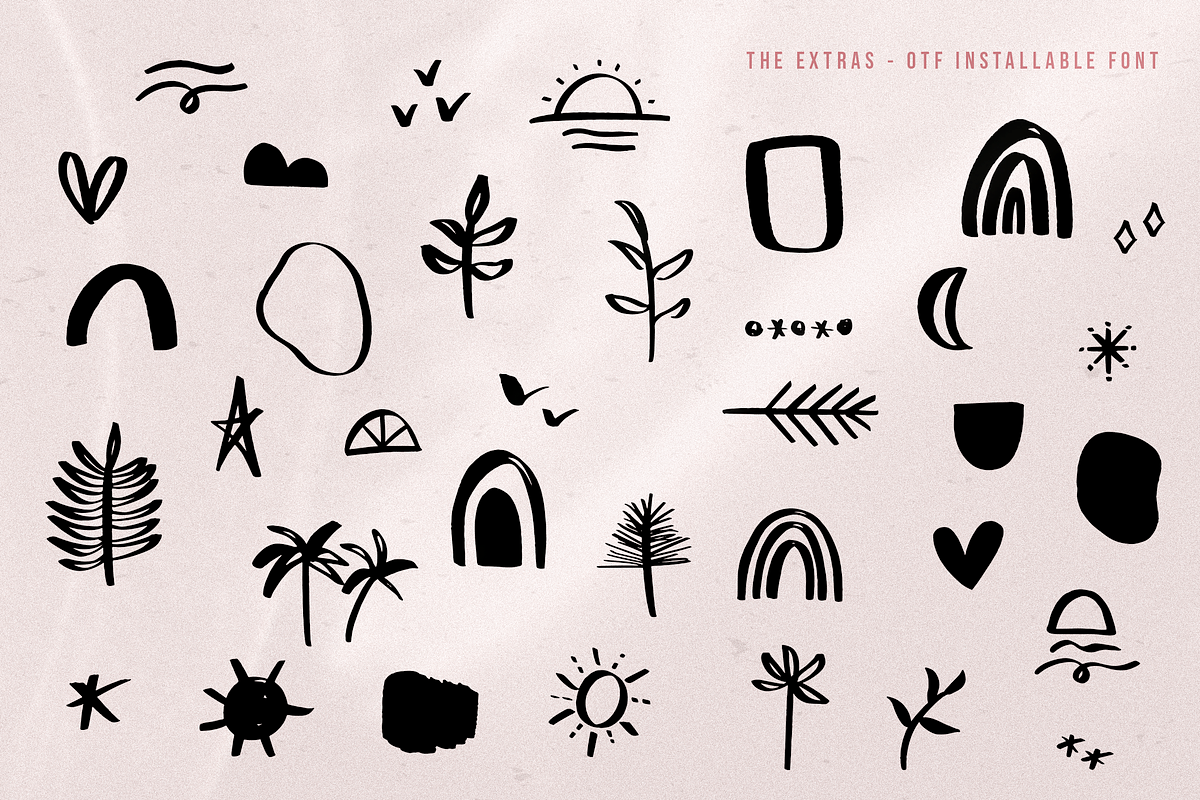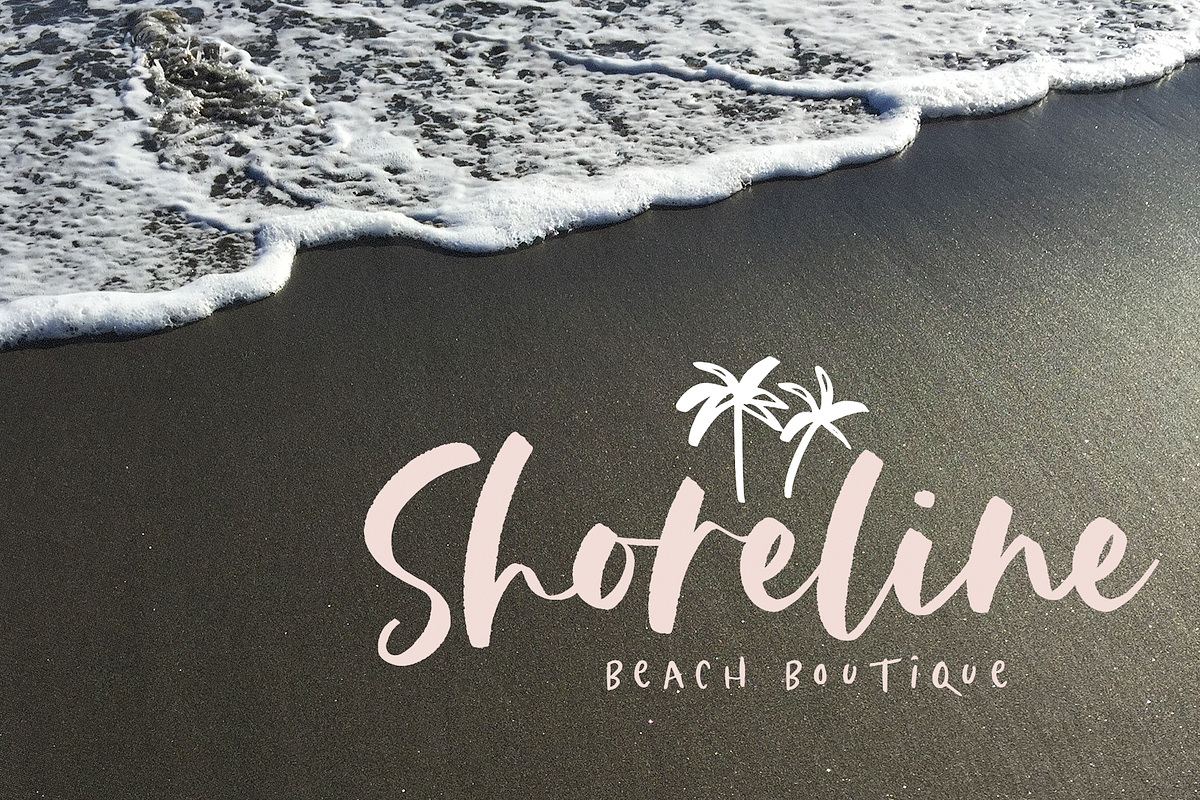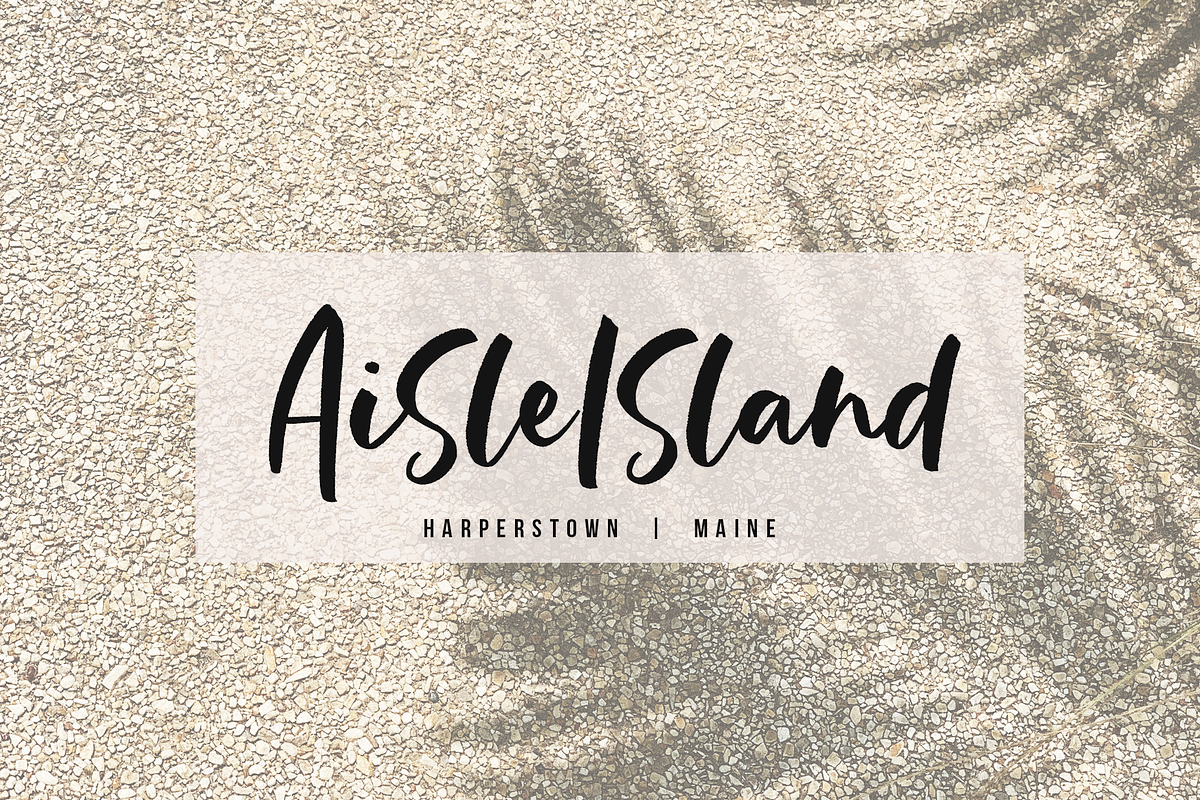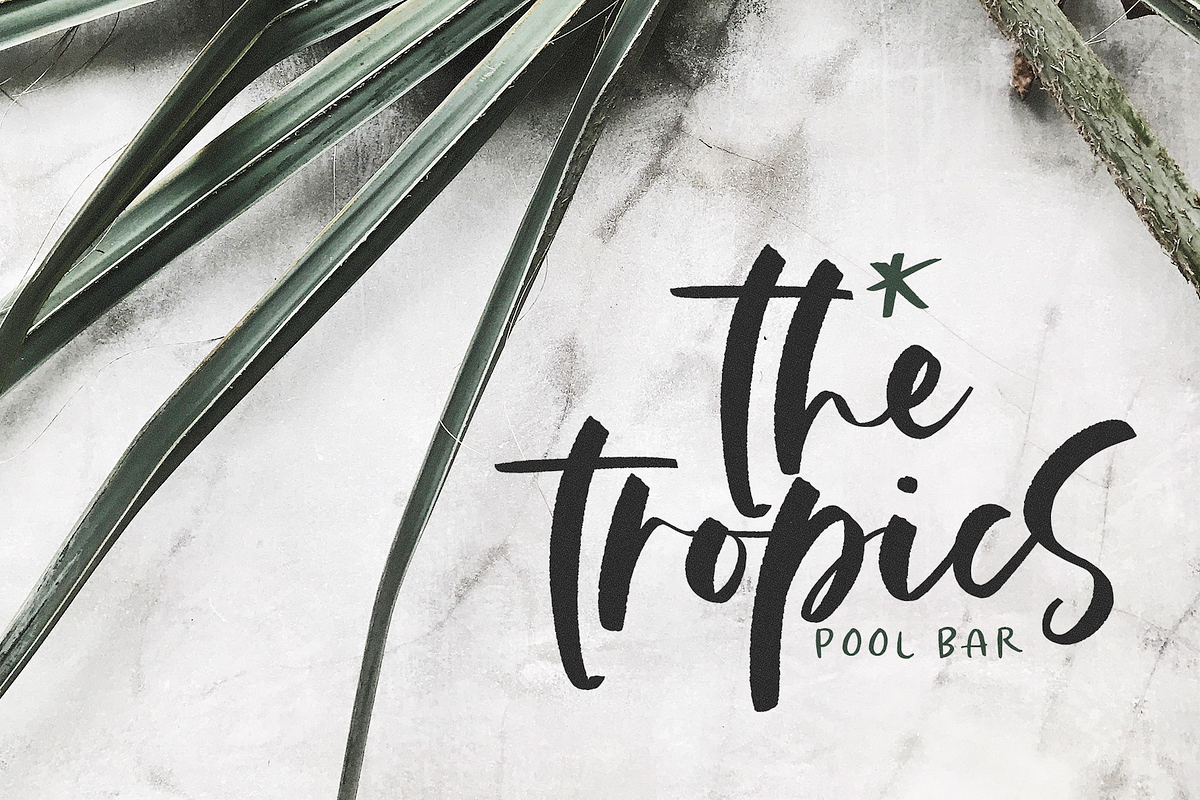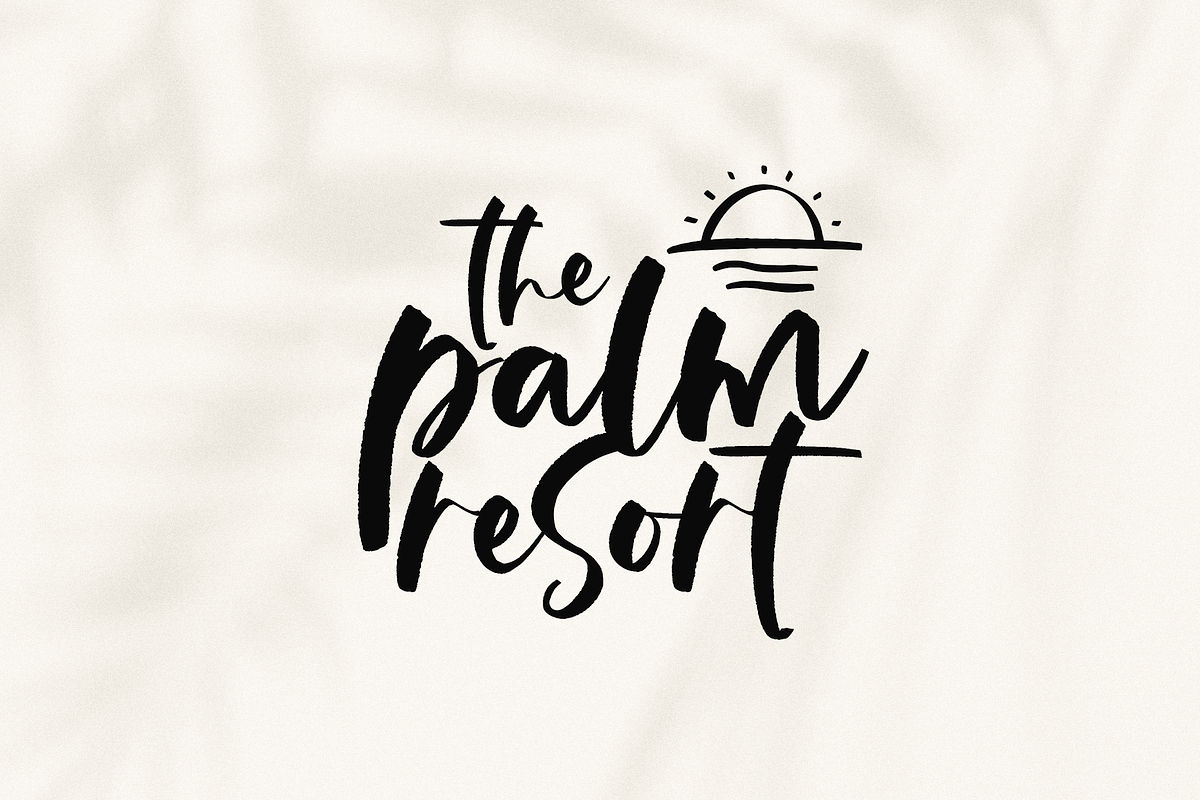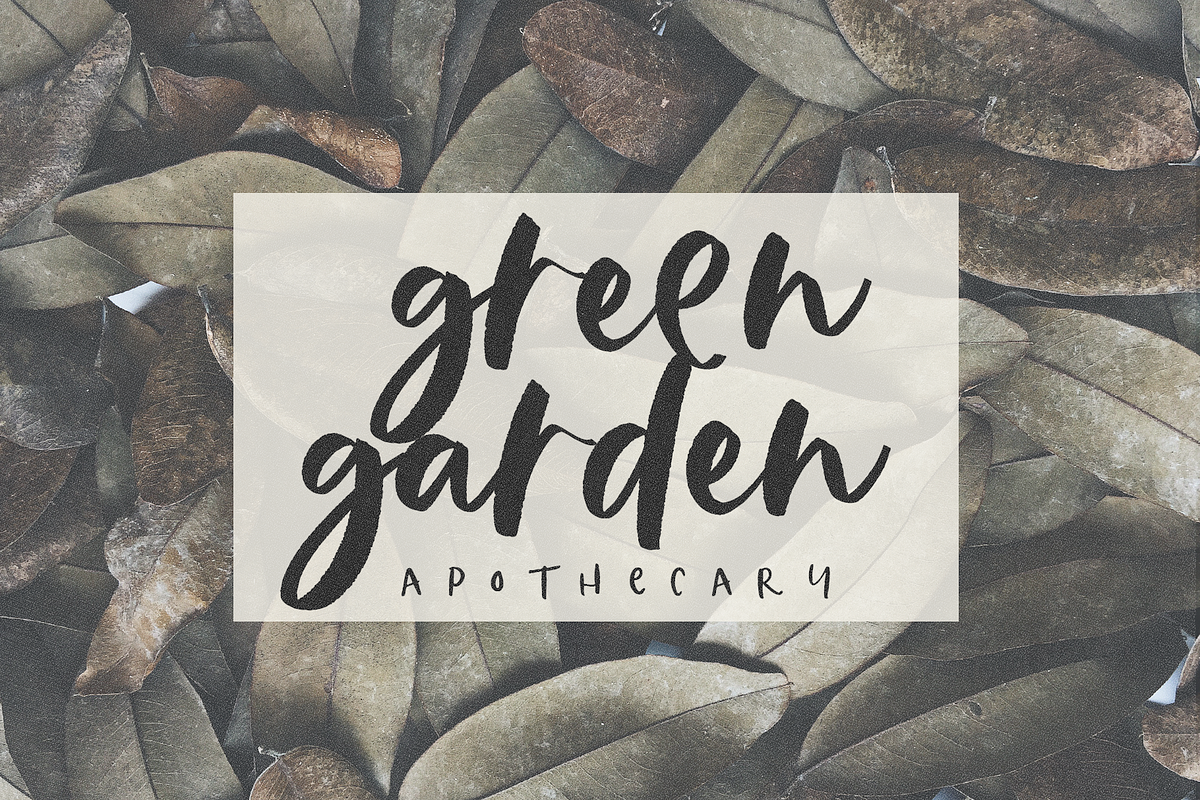
The Coast | Script Font with Extras
The Coast is a carefree, handwritten script font.
This font is perfect for modern projects, headings, blogs, logos, brandings, invitations and more!
- A set of complimentary doodles are included as a font file (use capital letters A-Z).